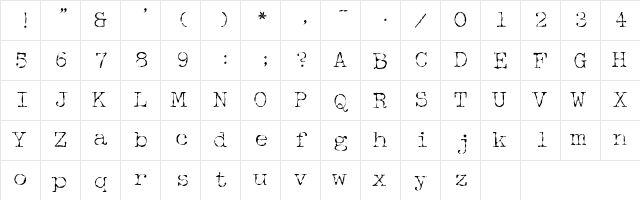
Mc Garey Fractured
| Style | Fractured |
Design Context for Mc Garey Typeface
Mc Garey takes a measured approach to typography — its balanced proportions and neutral character make it a reliable workhorse for both digital and print work.